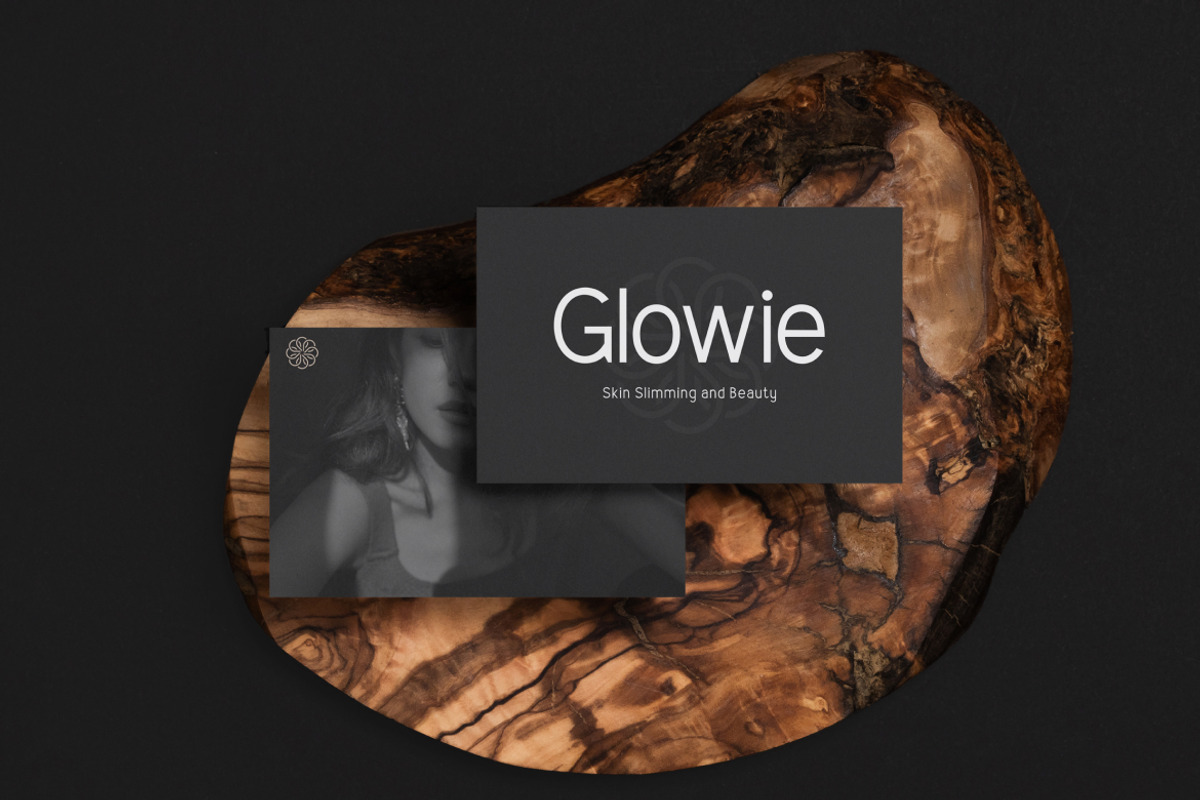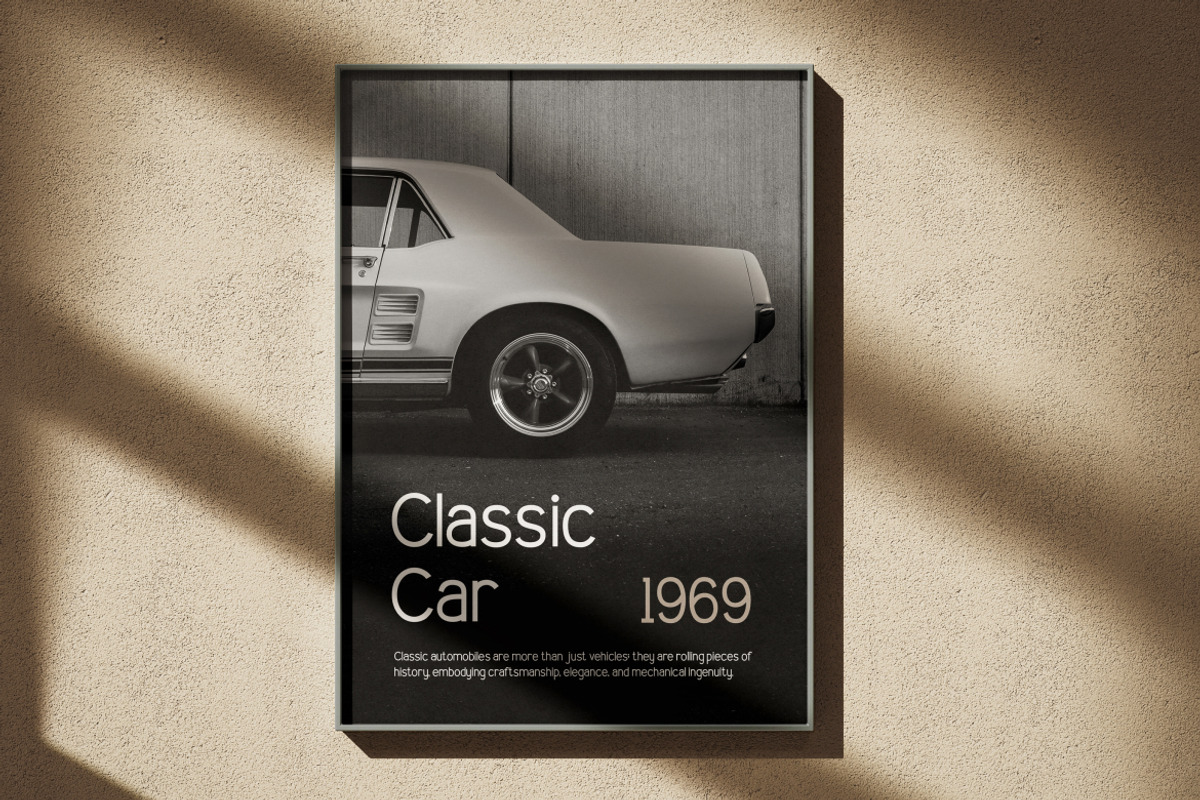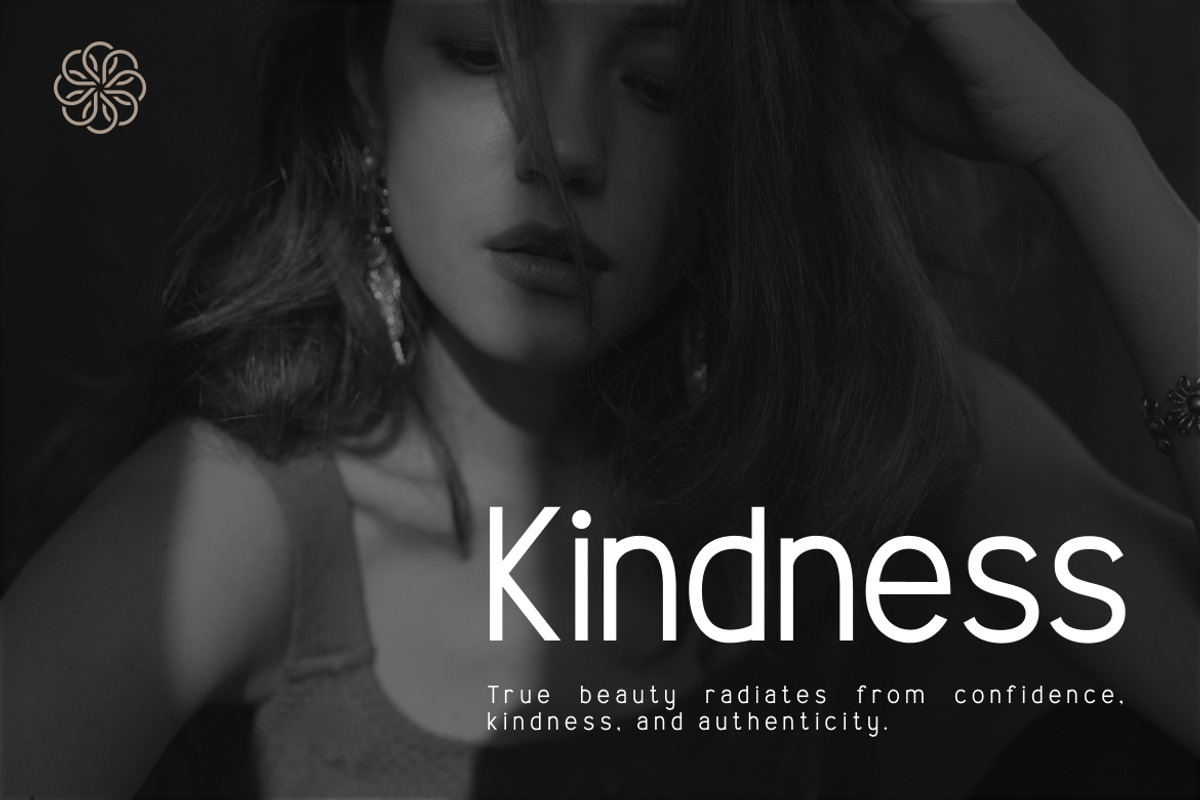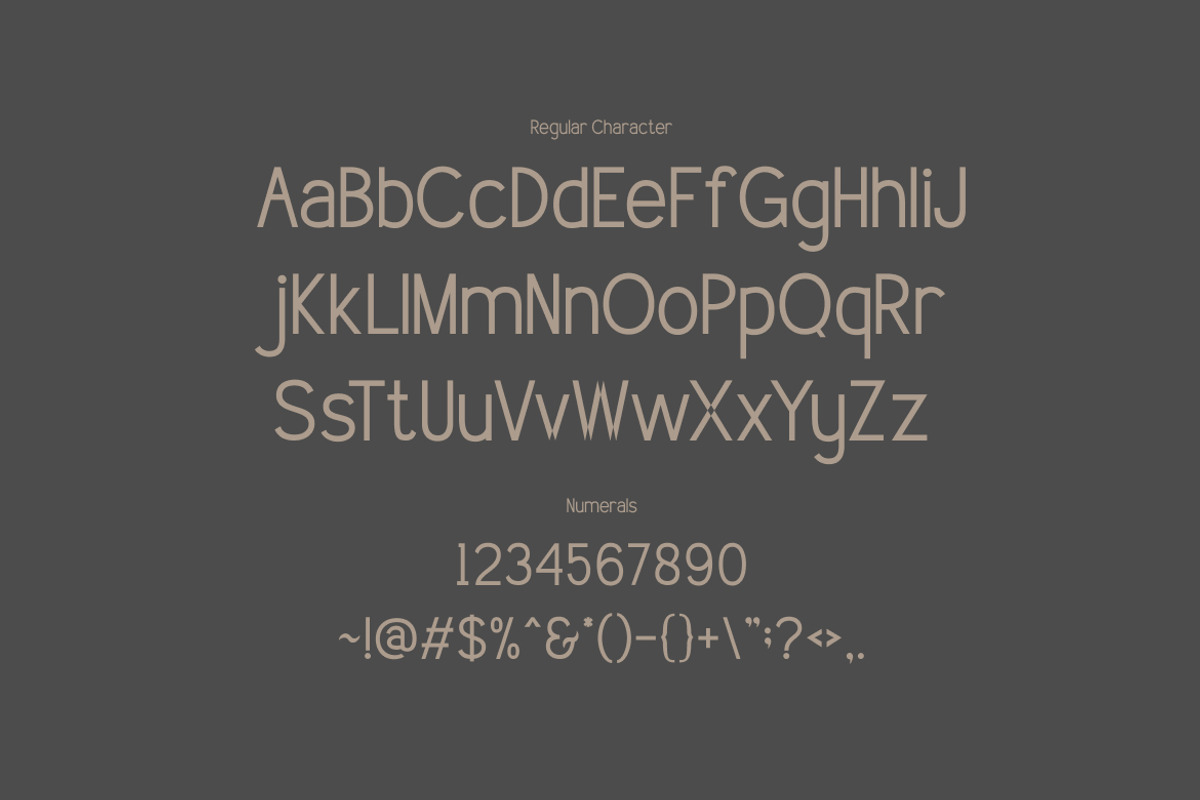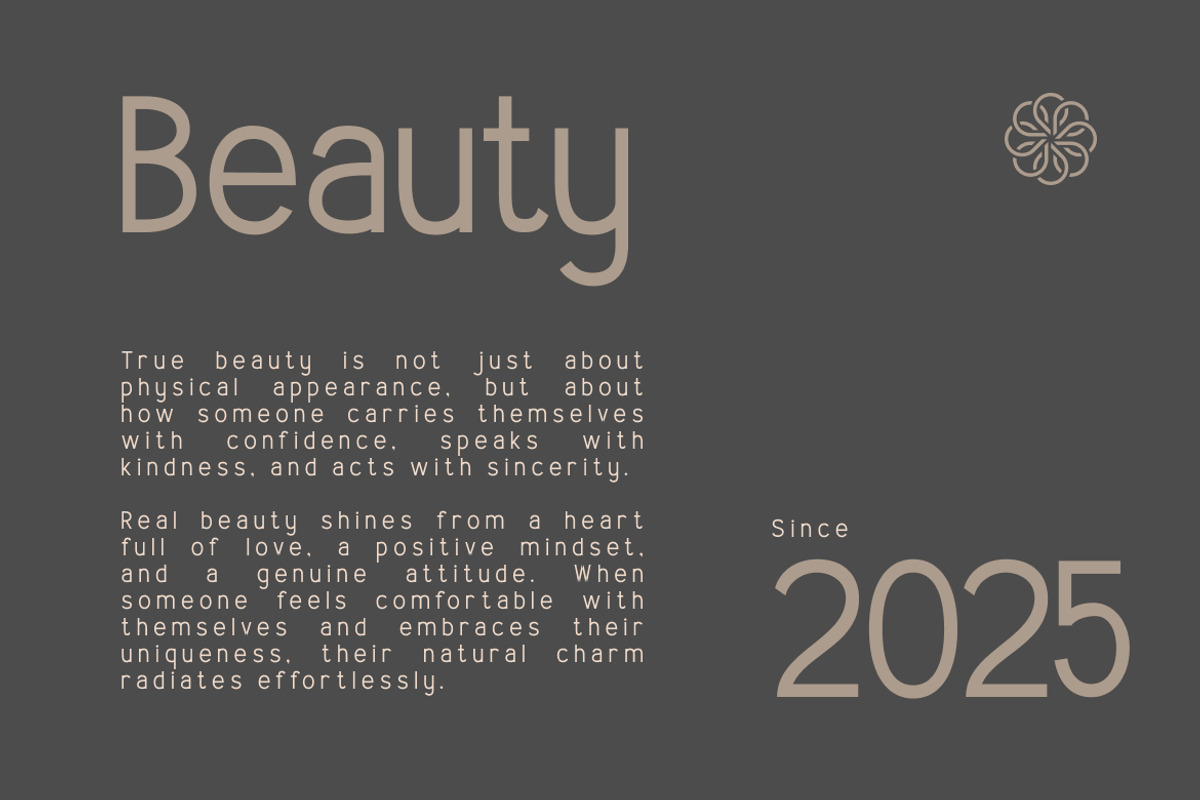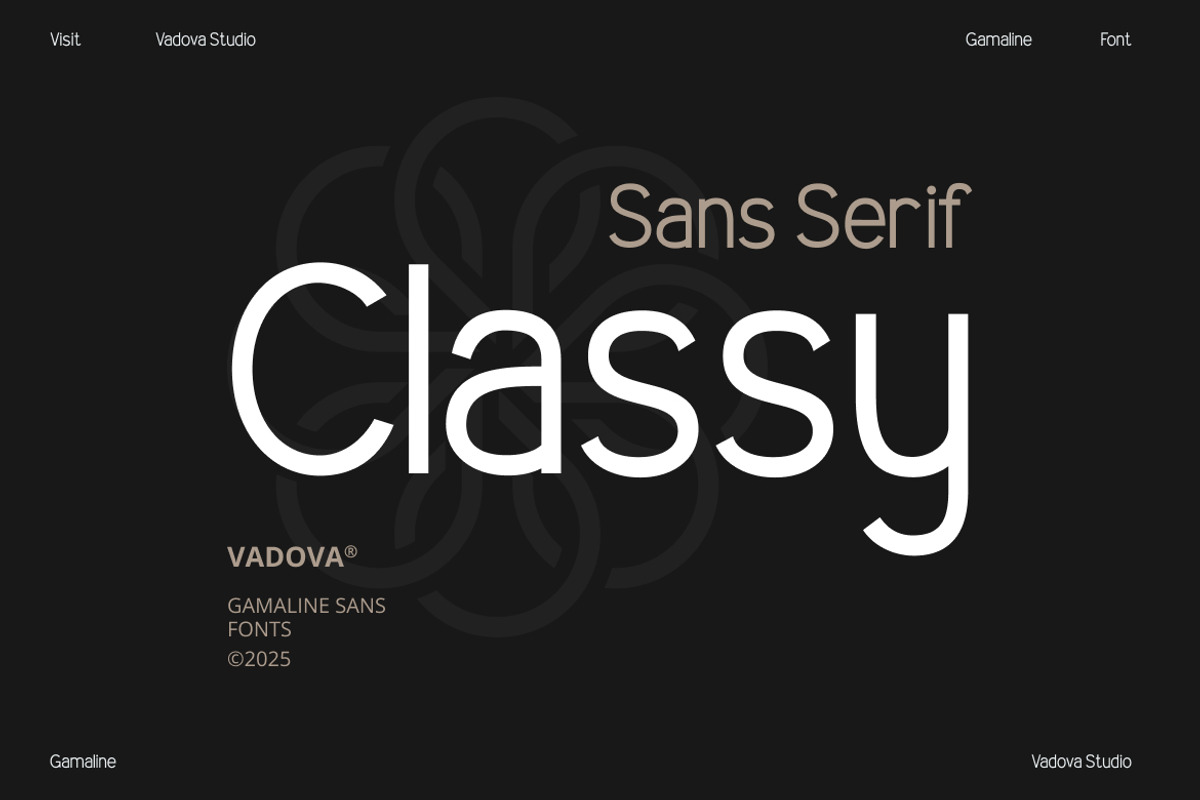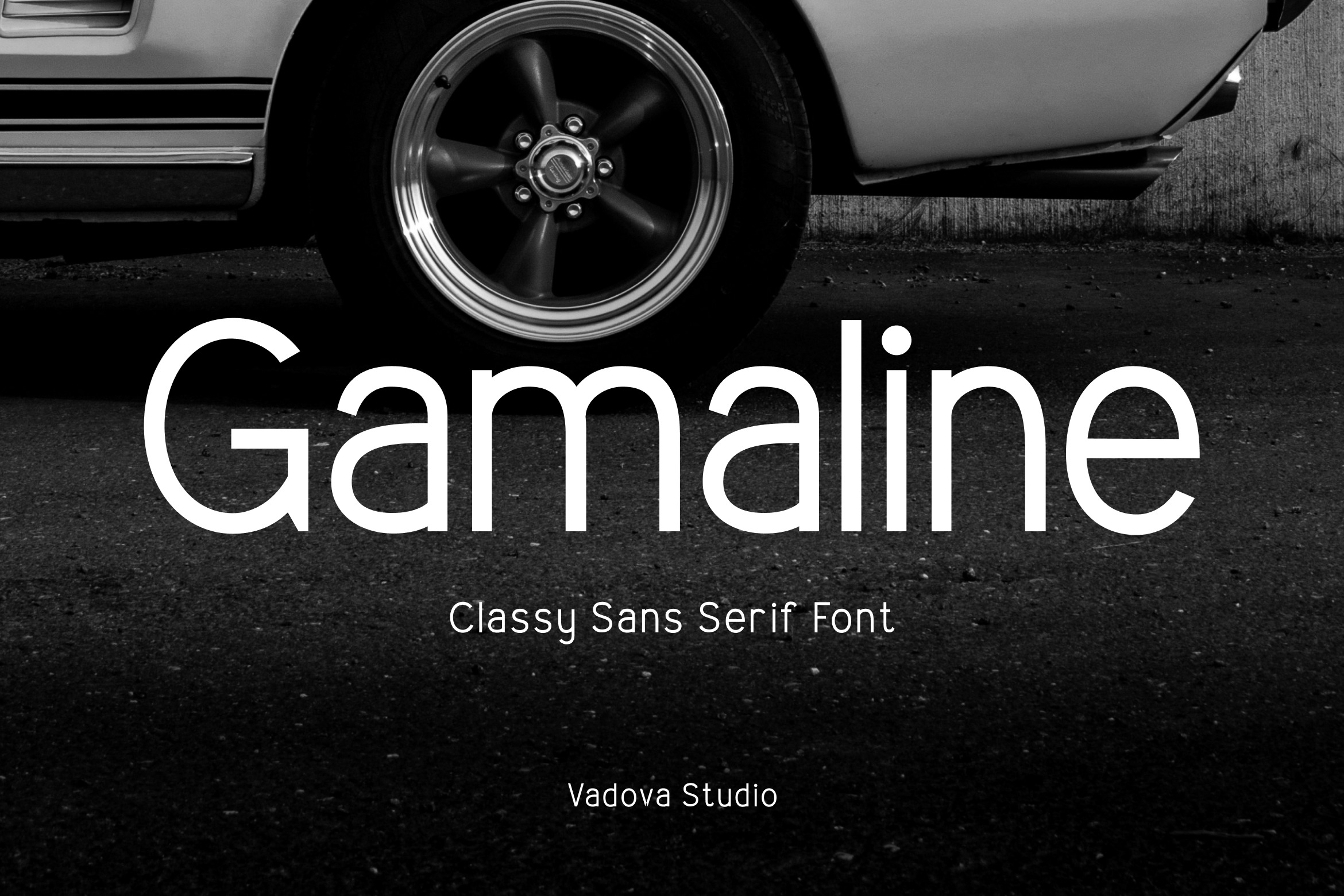
Gamaline - Sans Serif Font
Enhance your designs with Gamaline Sans Serif Font, presents a refined, confident presence with its clean sans-serif form that radiates modernity and timeless elegance. It is designed to offer a bold yet minimalist impression, allowing the content to speak without distraction. With its smooth curves and consistent geometry, Gamaline brings clarity and sophistication to every design.
This font is crafted for premium editorial layouts, modern fashion campaigns, luxury product branding, and design-focused social media content. Its versatile style fits seamlessly into automotive publications, high-end packaging, contemporary web design, and even corporate or tech branding.
The letterform structure is a harmonious blend of geometric construction and soft edges—allowing it to retain approachability while being undeniably classy. Its legibility and balanced proportions make it a powerful tool for both display and text sizes across branding, editorial work, and advertising materials.
Main Features
- Uppercase & Lowercase characters
- Numeral & Punctuations
Suitable For: branding, editorial design, product packaging, posters, digital ads, website headers, automotive content, magazine layout, lifestyle campaigns, startup pitch decks, portfolio showcases.